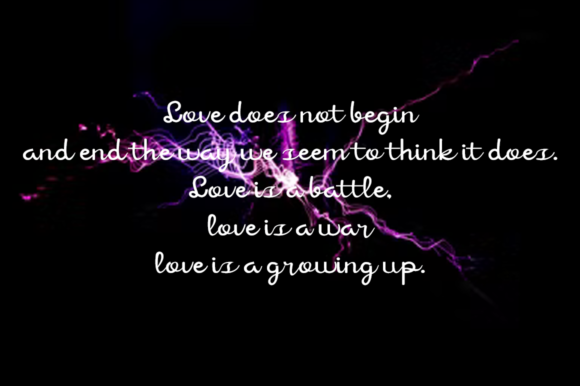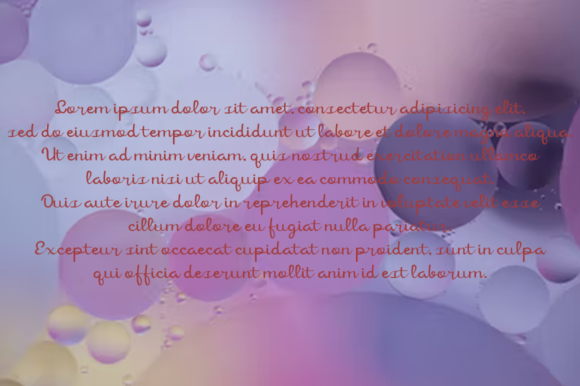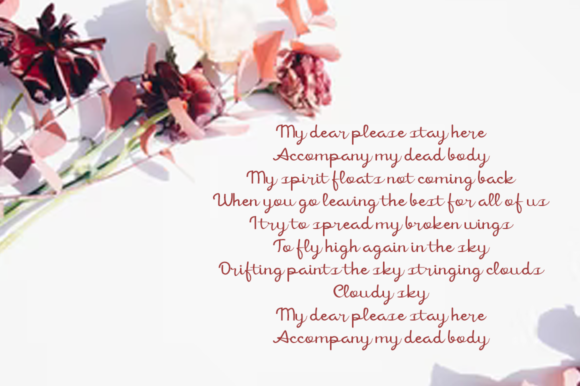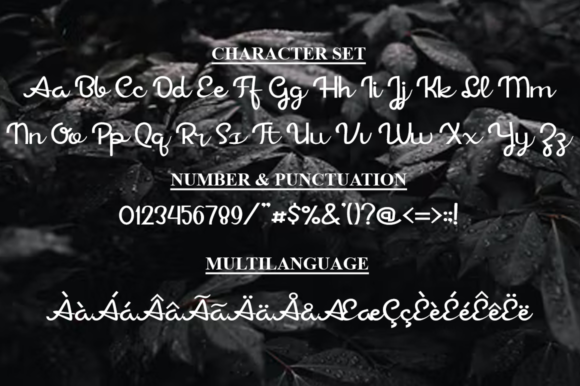
Asiatica Font
About Asiatica Font
Asiatica is a beautiful and clean handwritten font. Its natural and unique style makes it incredibly fitting to a large pool of designs. The only limit is your imagination!